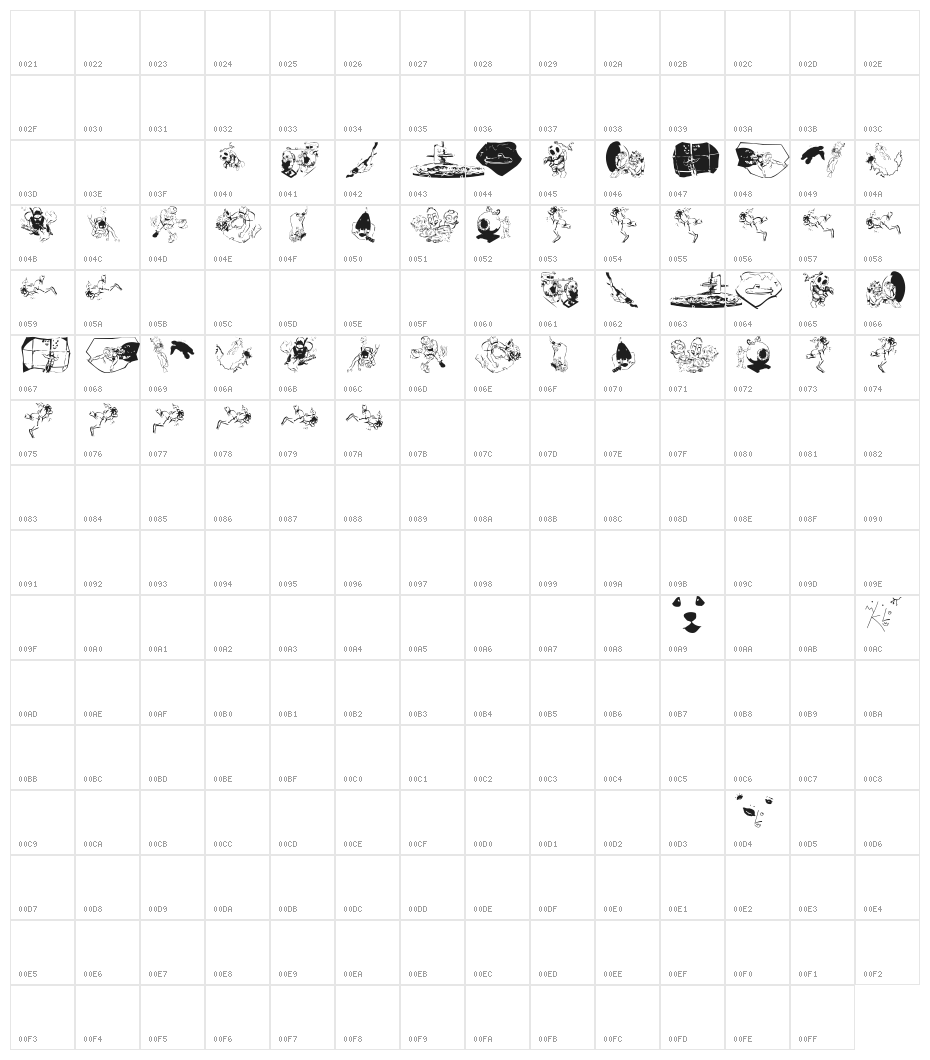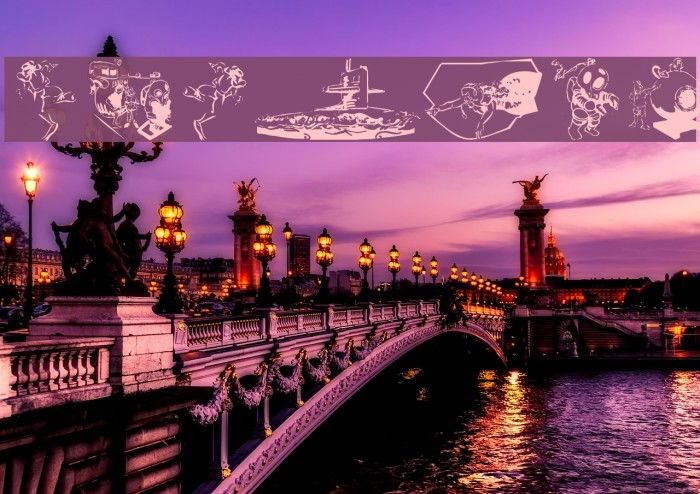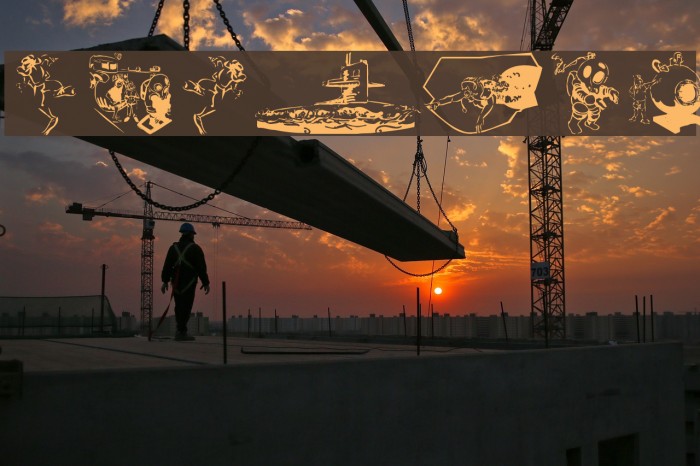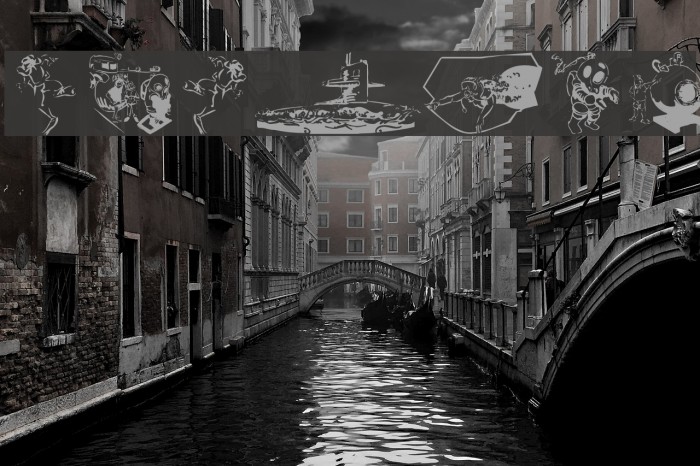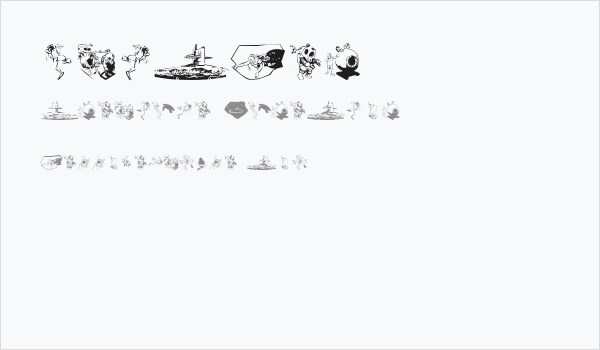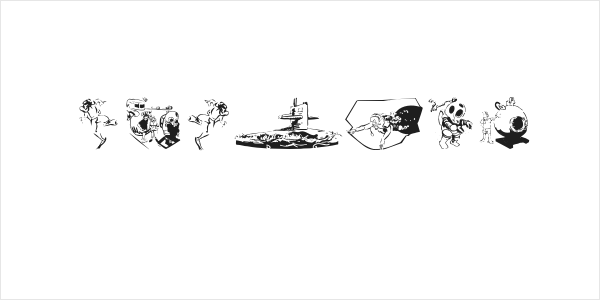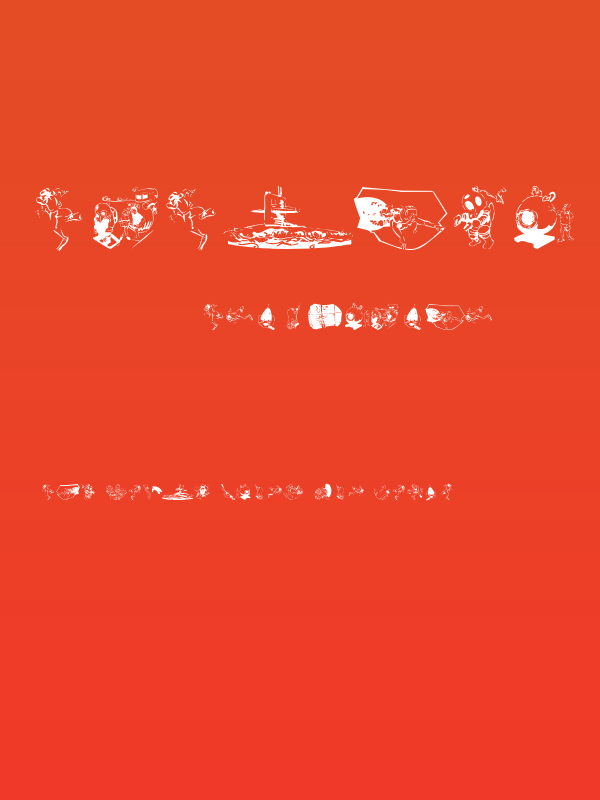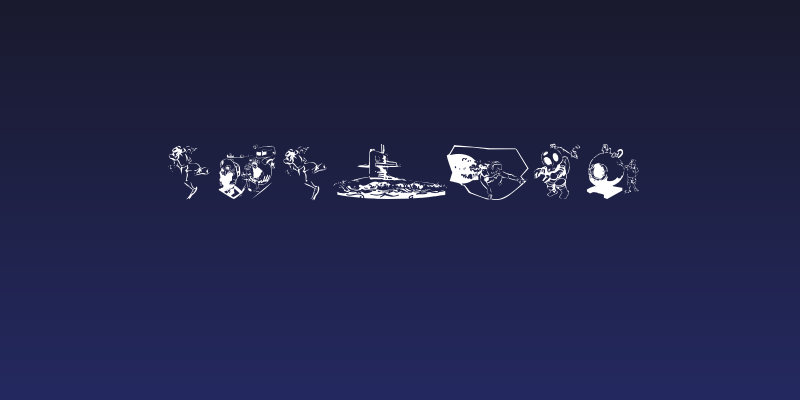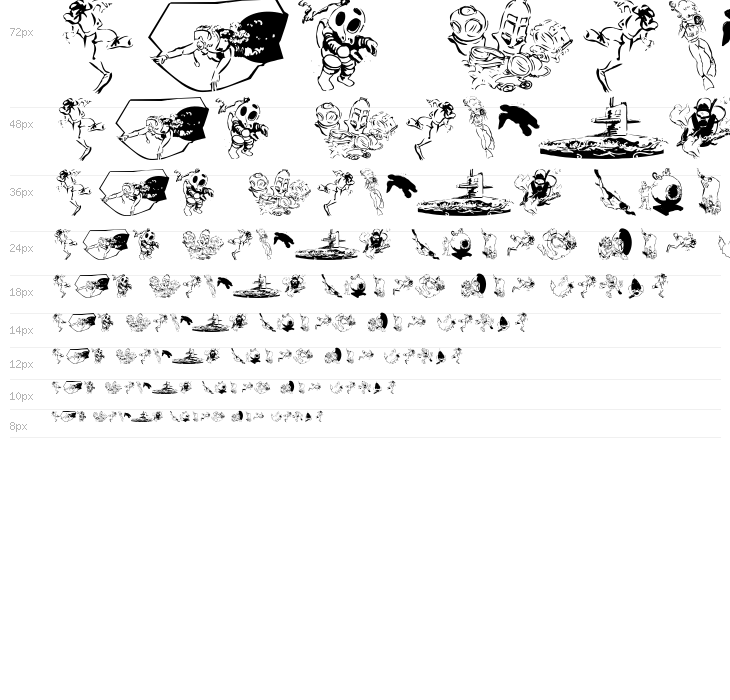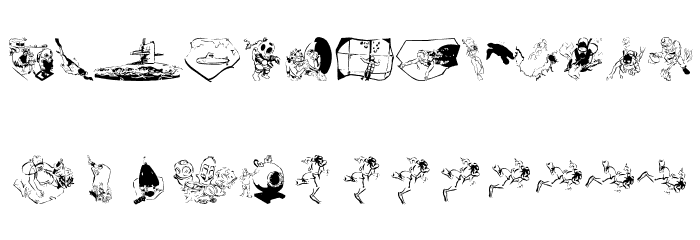
Taucher Font
Taucher Description
A highly decorative and illustrative font composed of detailed cartoon-style drawings, each glyph representing a unique underwater or diving-themed scene rather than traditional letterforms.
| Overall Style | Decorative, Whimsical, Thematic |
| Use Case | Logos, Posters, Themed Headlines, Crafts |
| Proposed Projects | Children's books, themed posters, party invitations, educational materials, novelty designs. |